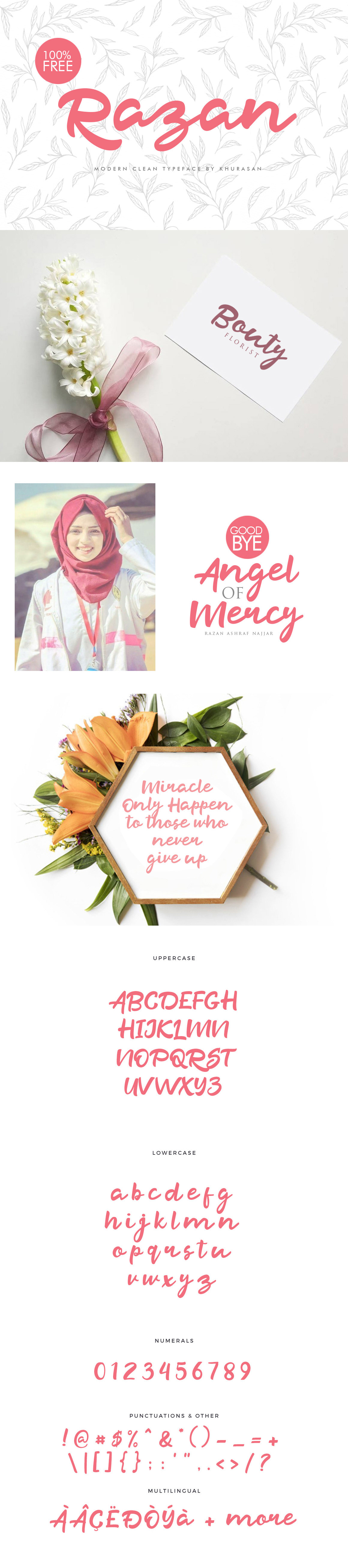
Razan Script
Razan Script Font
Razan is a hand-drawn script font created by syaf rizal. It is modern & clean making it a great font for multiple purposes. Razan is a multilingual font and includes many different characters and ligatures.